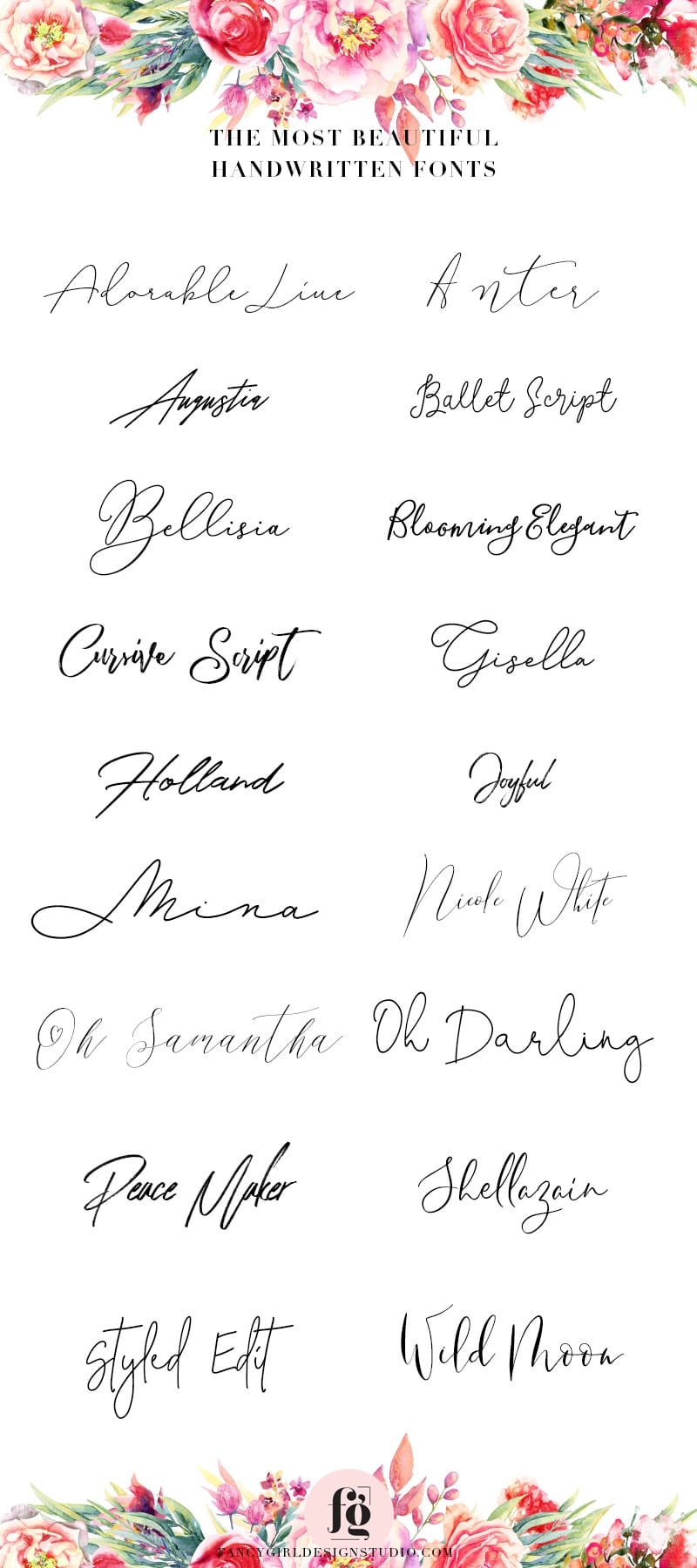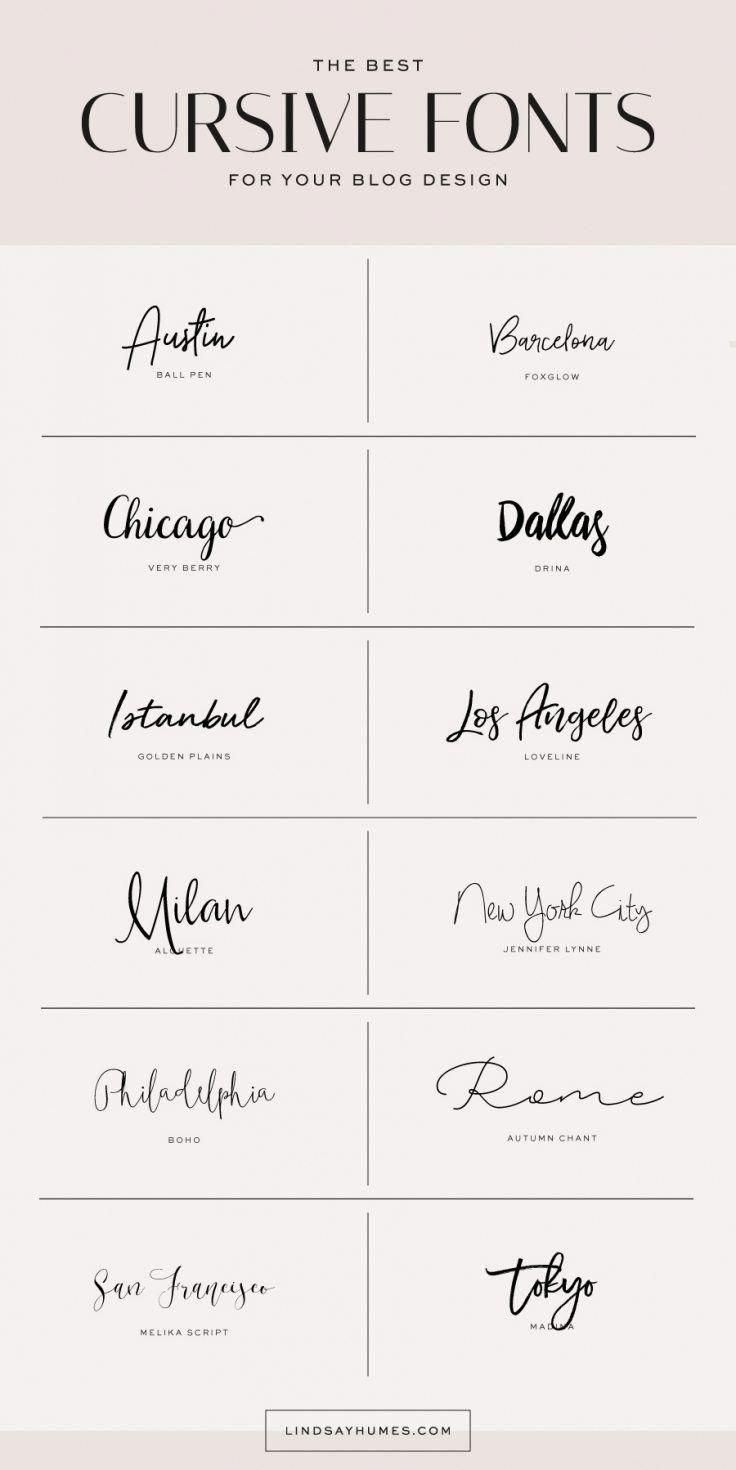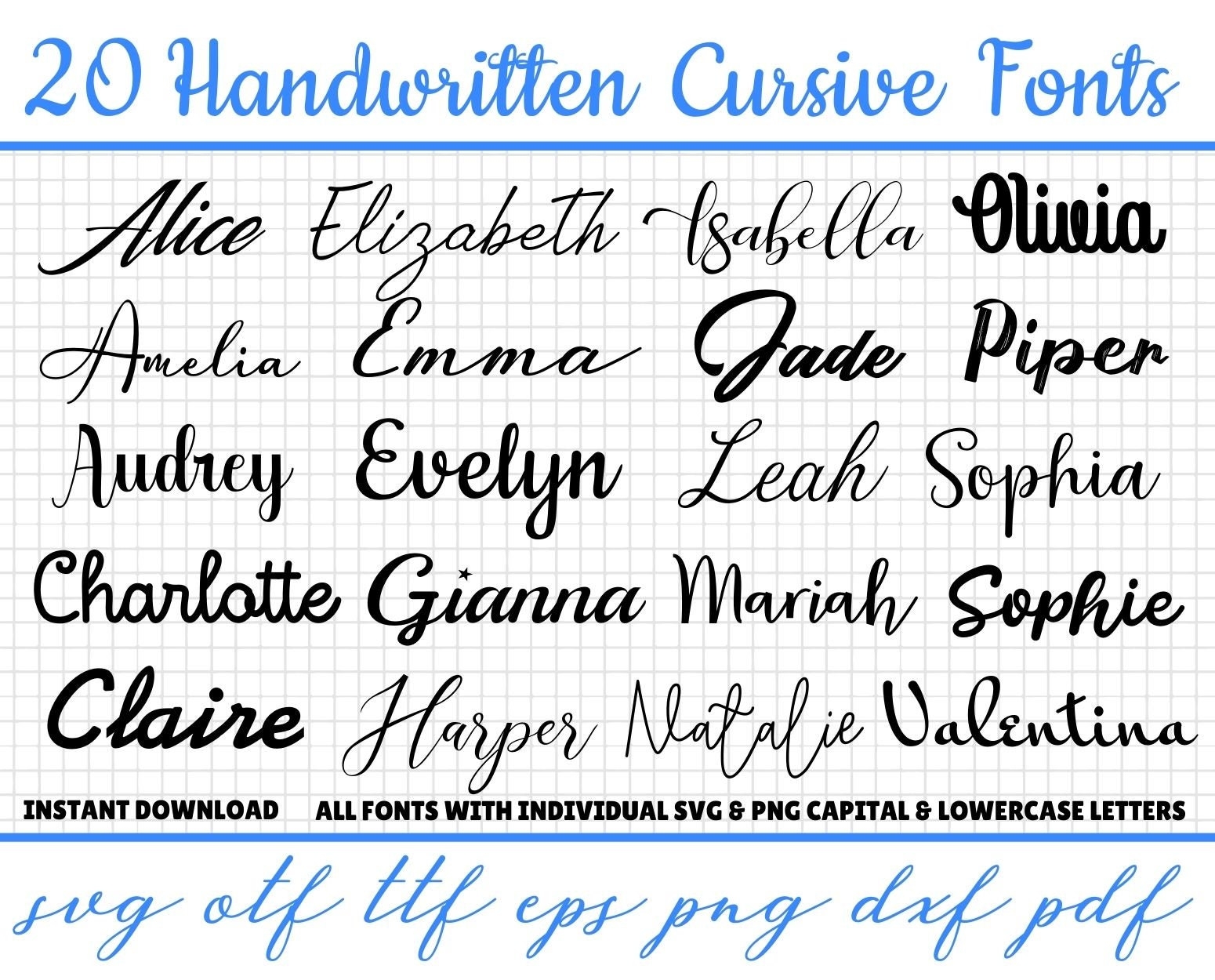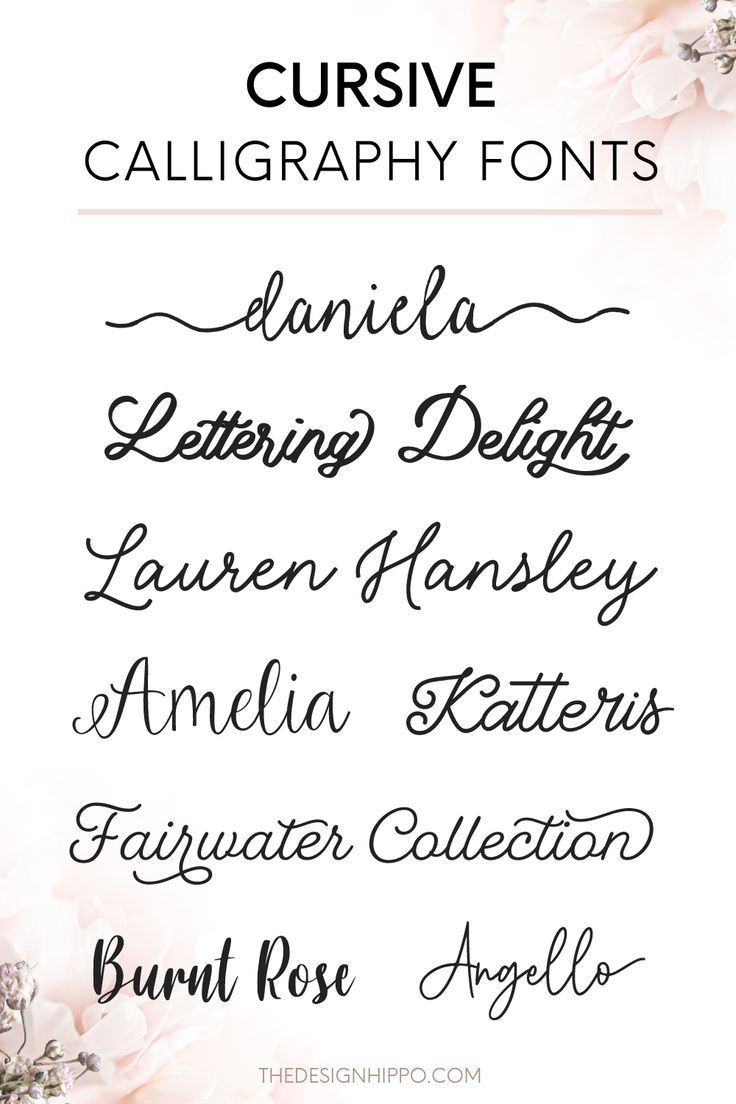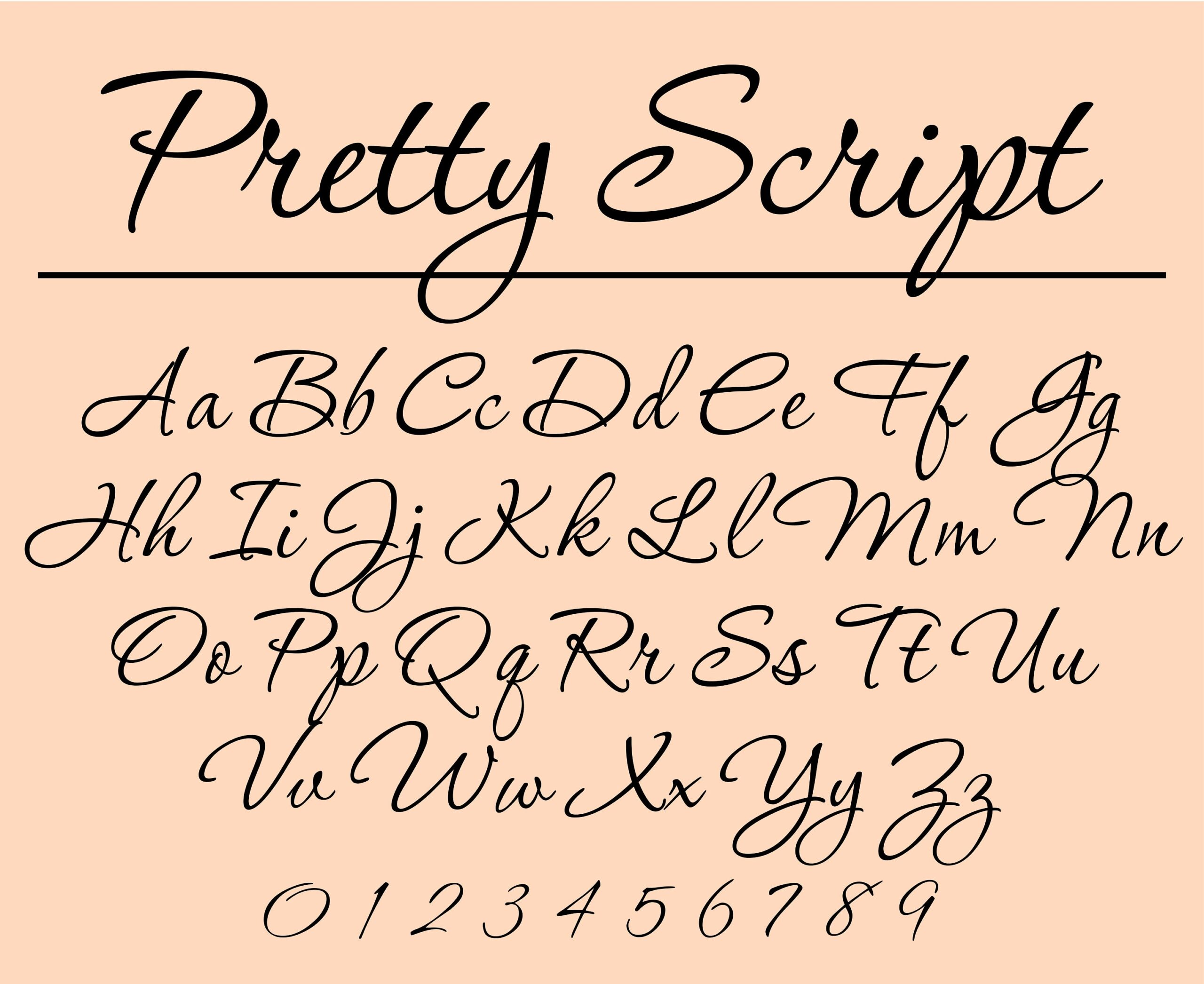
Are you looking to add a touch of elegance to your projects or personal notes? Beautiful cursive handwriting fonts can be the perfect solution. With their flowing, graceful lines, these fonts can give your work a sophisticated and artistic feel.
Whether you’re creating invitations, greeting cards, or simply want to elevate your everyday writing, cursive fonts can add a special touch. They come in a variety of styles, from traditional and elegant to modern and whimsical, allowing you to choose the perfect one for your needs.
Discover the World of Beautiful Cursive Handwriting Fonts
One of the great things about cursive fonts is their versatility. They can be used in a wide range of projects, from wedding stationery to social media graphics. With their timeless appeal, these fonts never go out of style and can instantly elevate the look of any design.
Many designers and creatives love using cursive fonts because they can add a personal and unique touch to their work. Whether you’re a beginner or an experienced designer, cursive fonts are easy to incorporate into your projects and can make a big impact.
With the rise of digital design tools, it’s easier than ever to access and use beautiful cursive handwriting fonts. Many websites offer free or affordable options for downloading these fonts, making it simple to find the perfect one for your next project.
So why not explore the world of beautiful cursive handwriting fonts and add a touch of elegance to your next project? Whether you’re creating a wedding invitation, designing a logo, or simply want to spice up your social media posts, cursive fonts can take your work to the next level.
In conclusion, beautiful cursive handwriting fonts are a versatile and elegant option for adding a special touch to your designs. With their timeless appeal and easy accessibility, these fonts are a great choice for anyone looking to elevate their projects with a touch of sophistication.